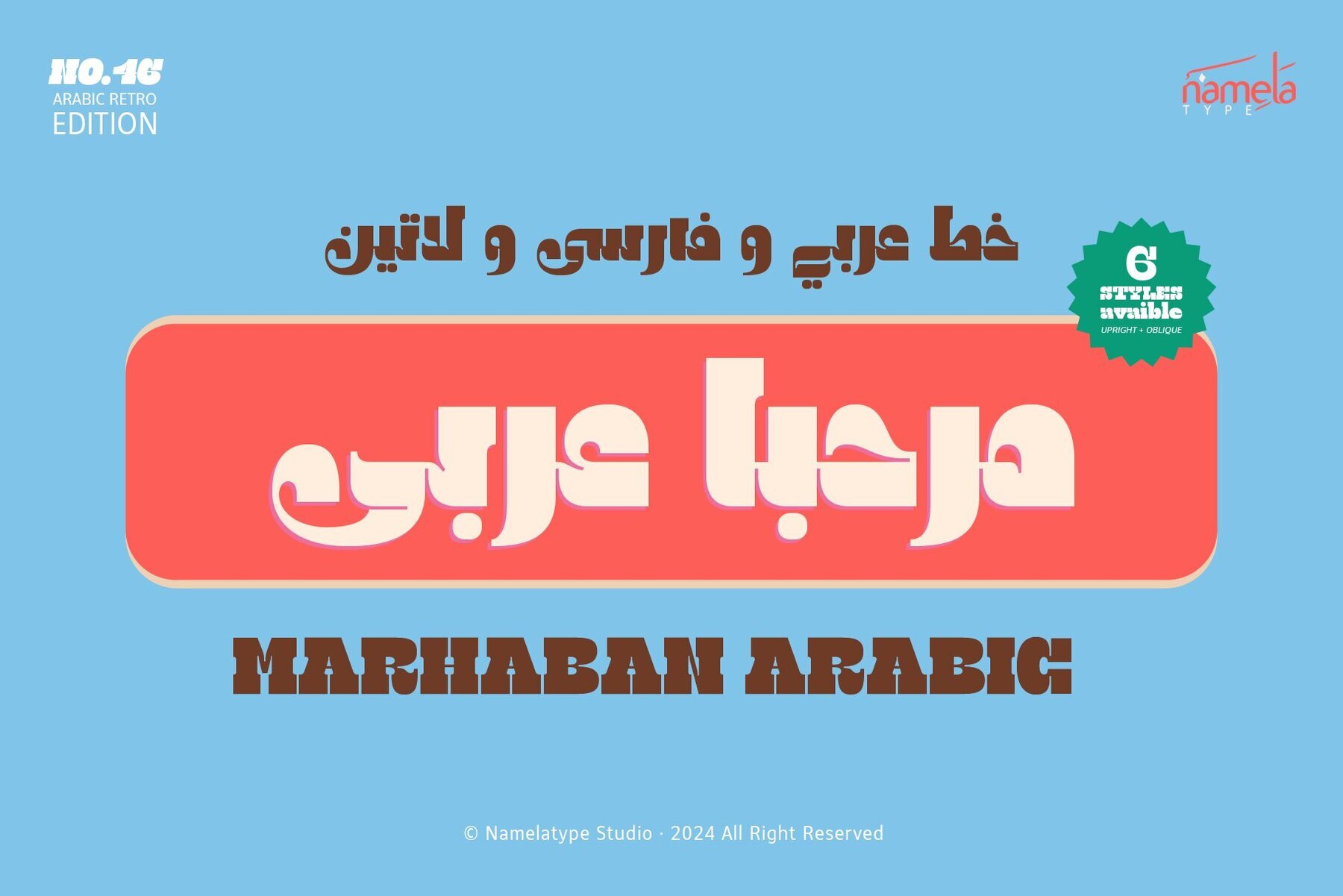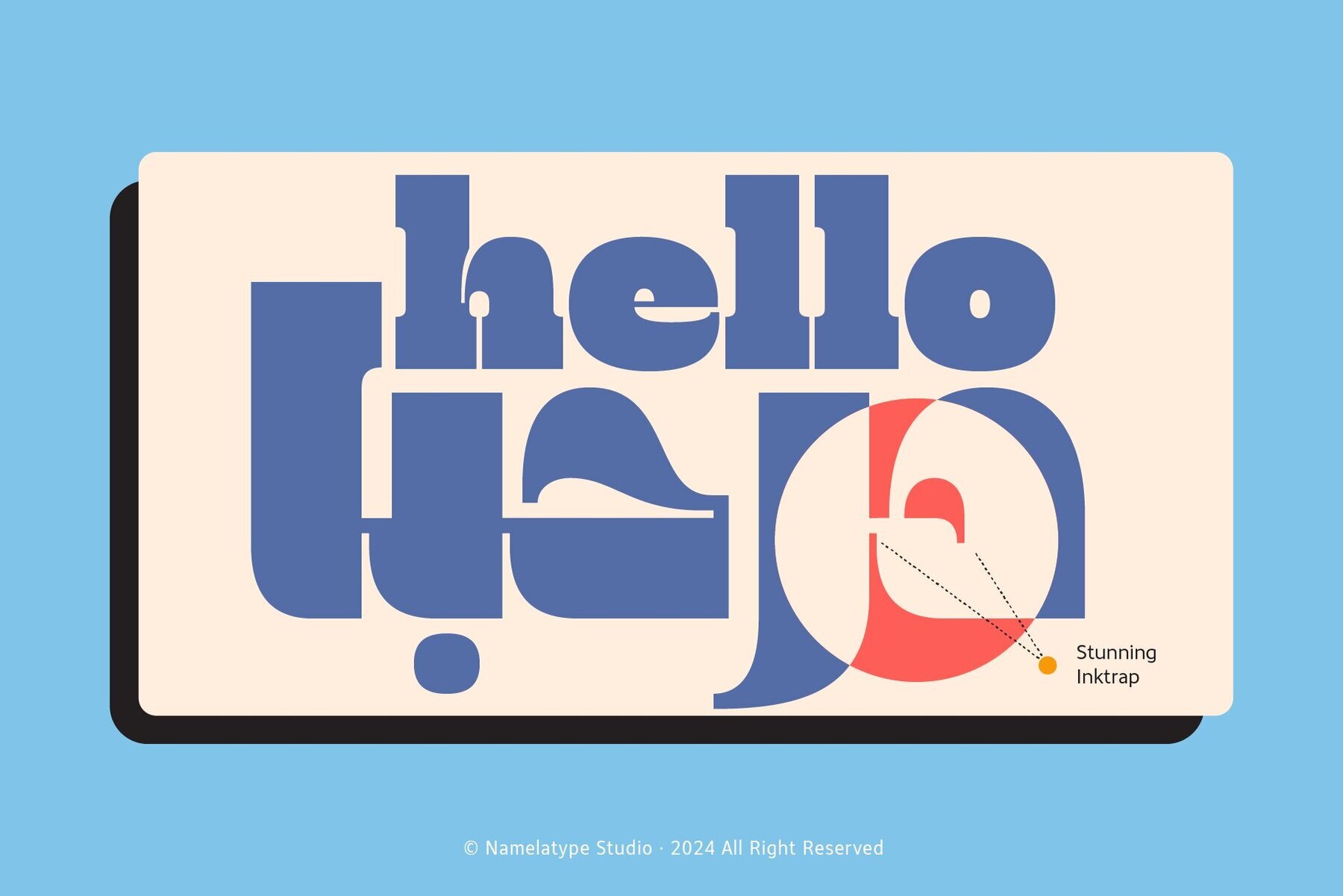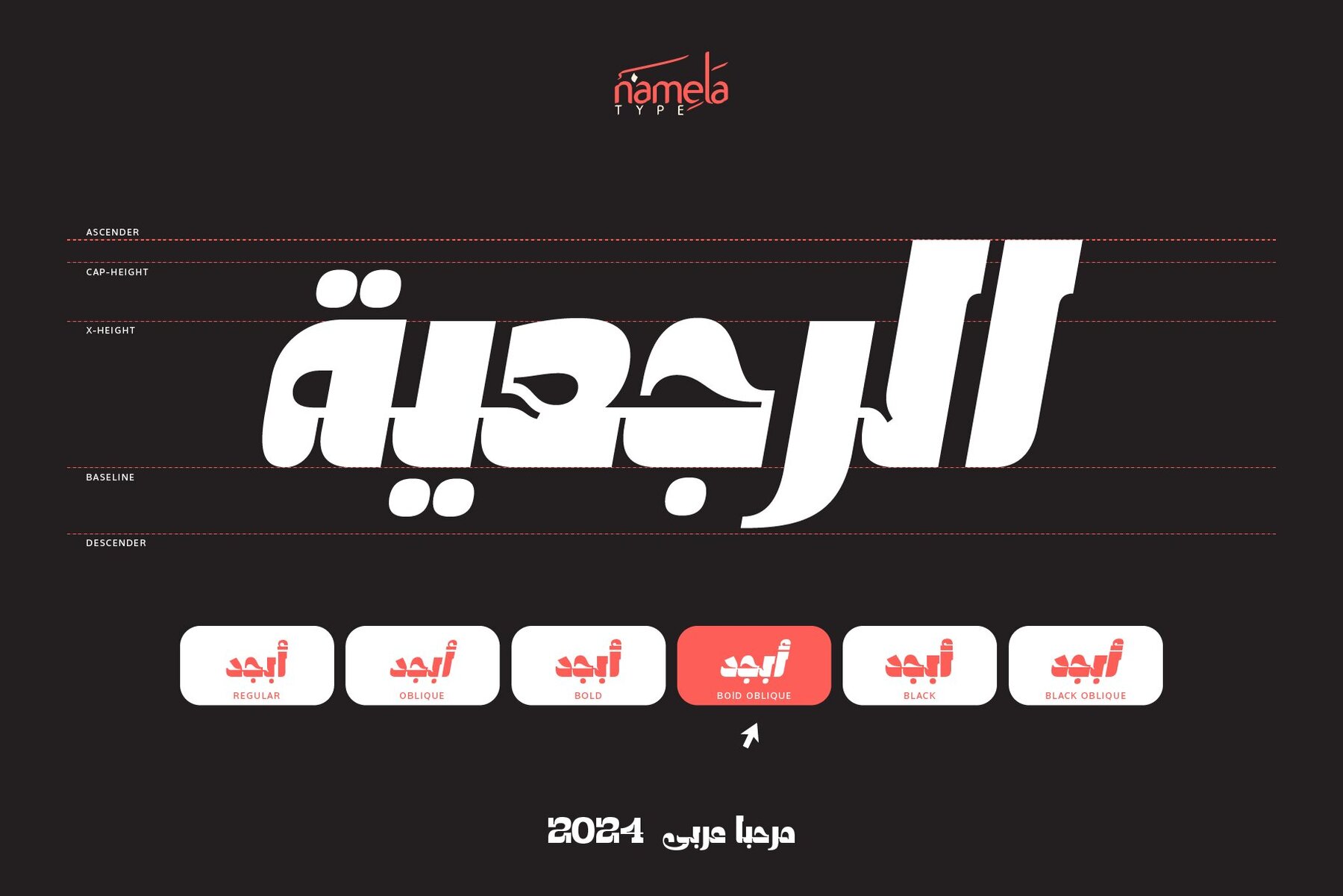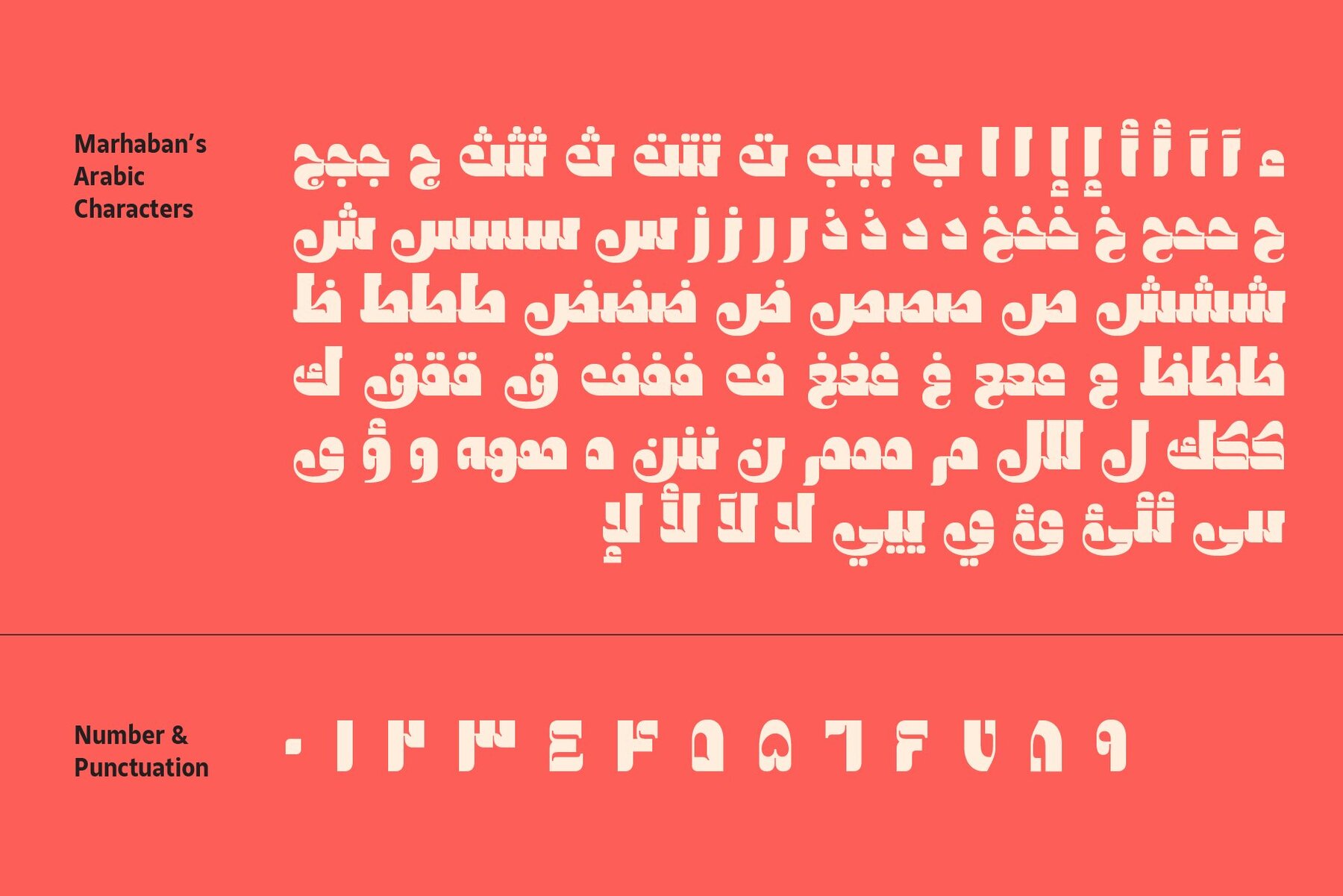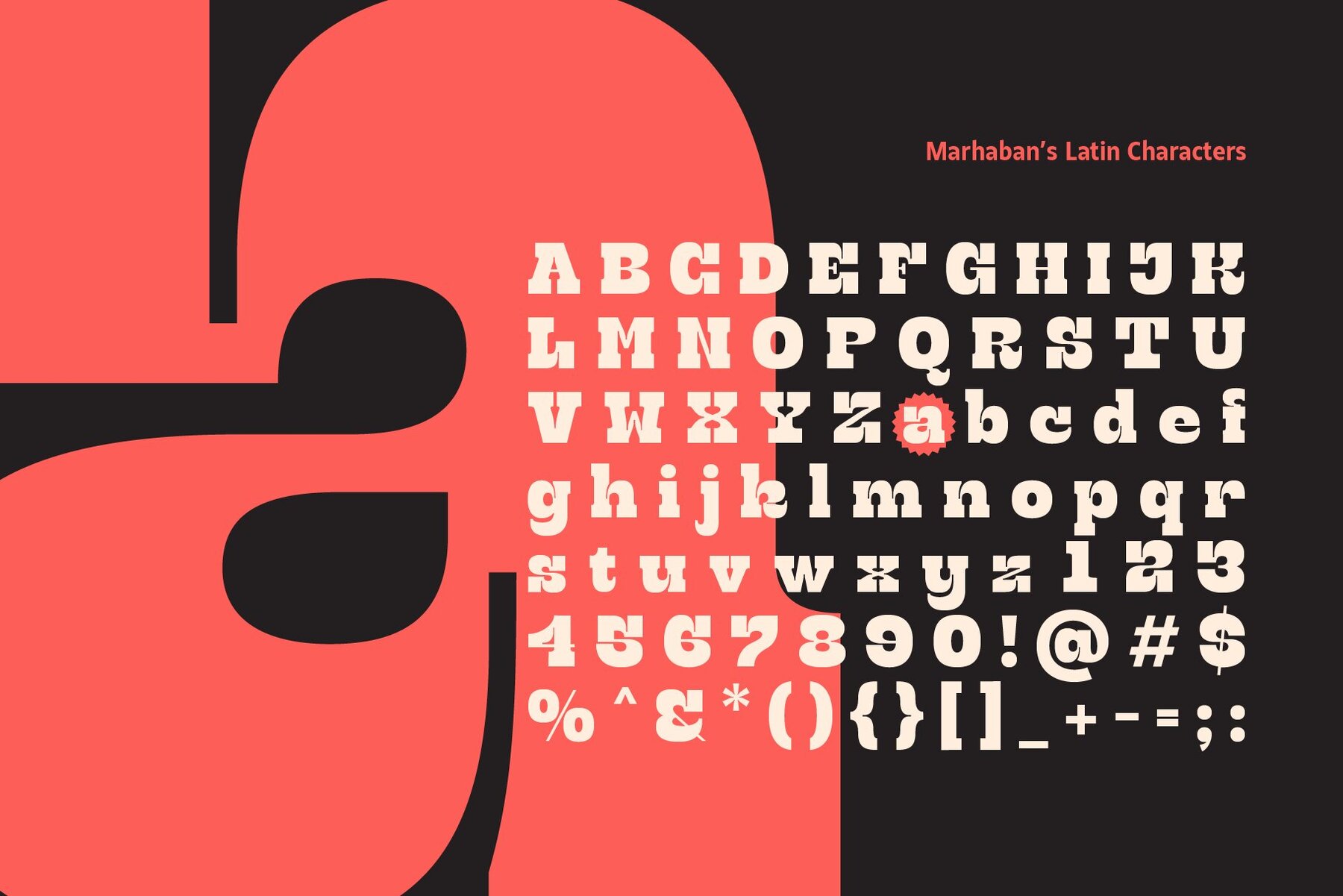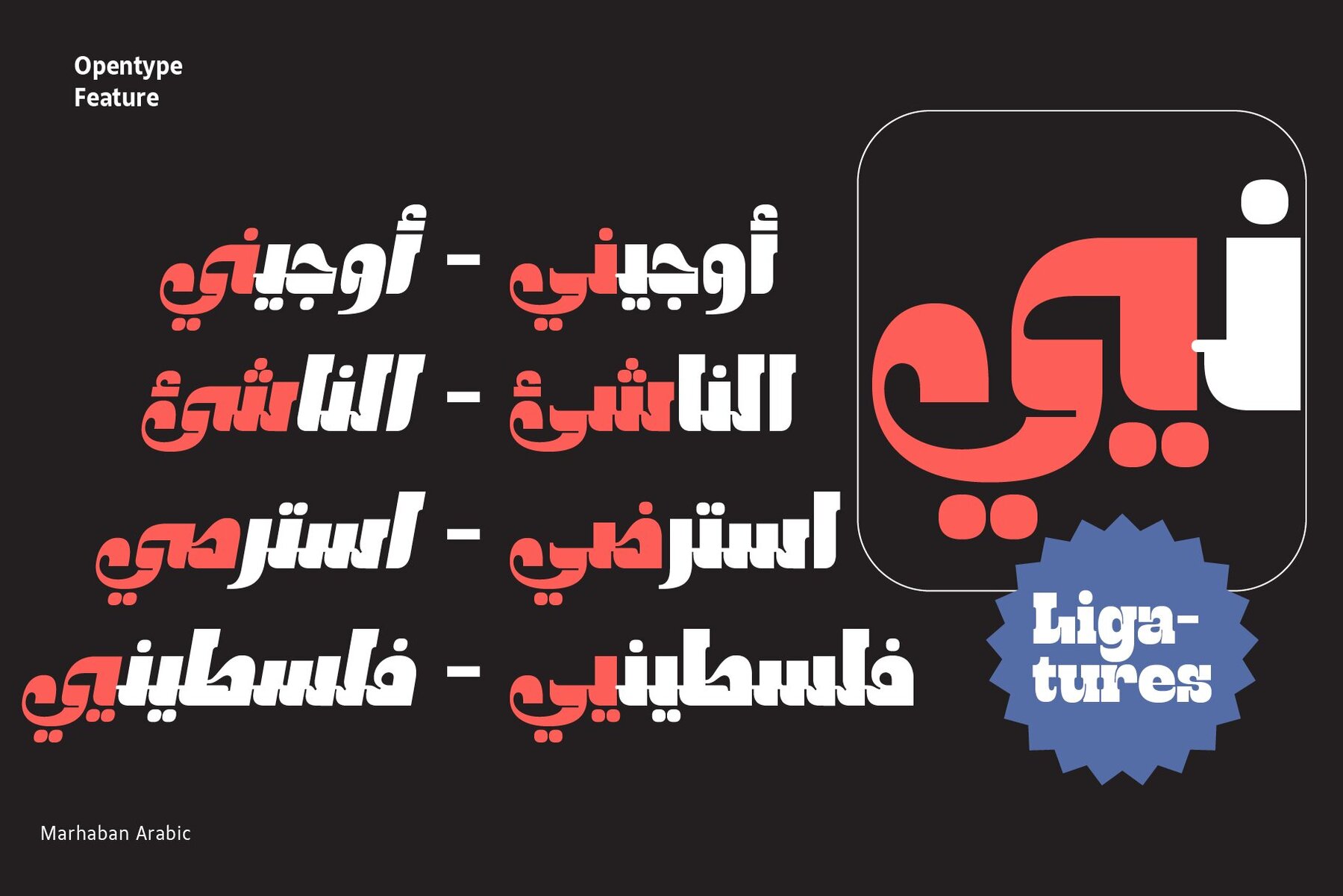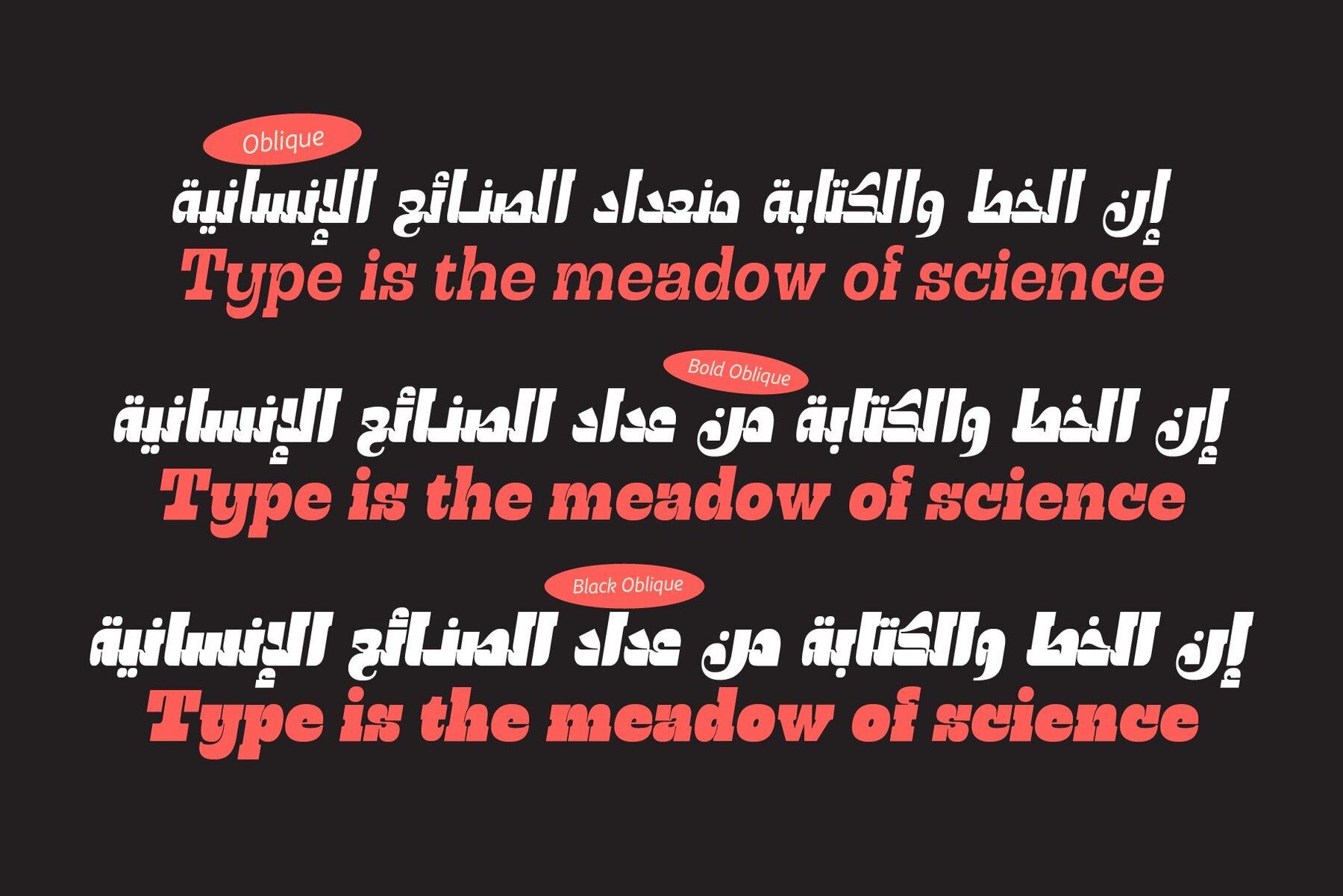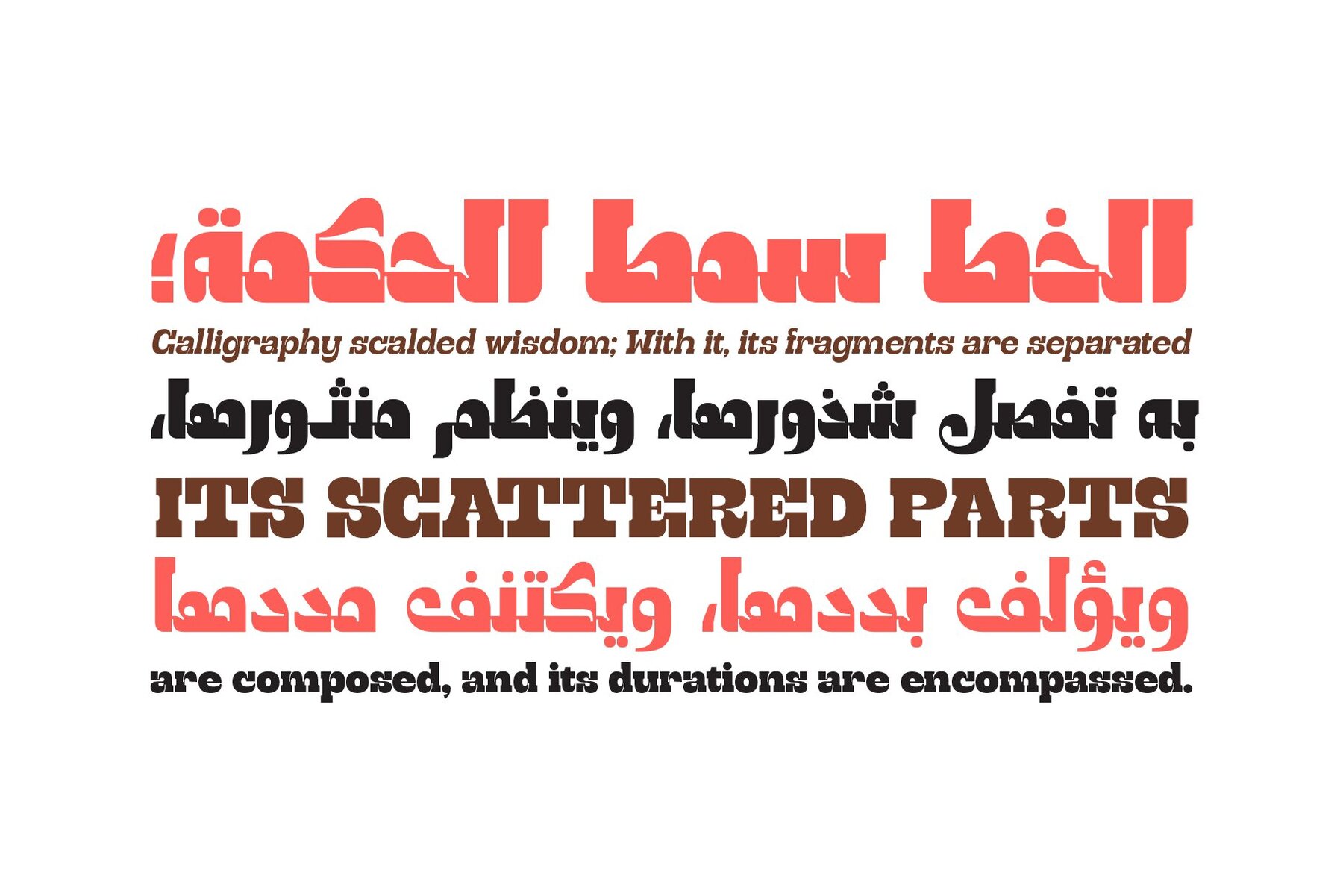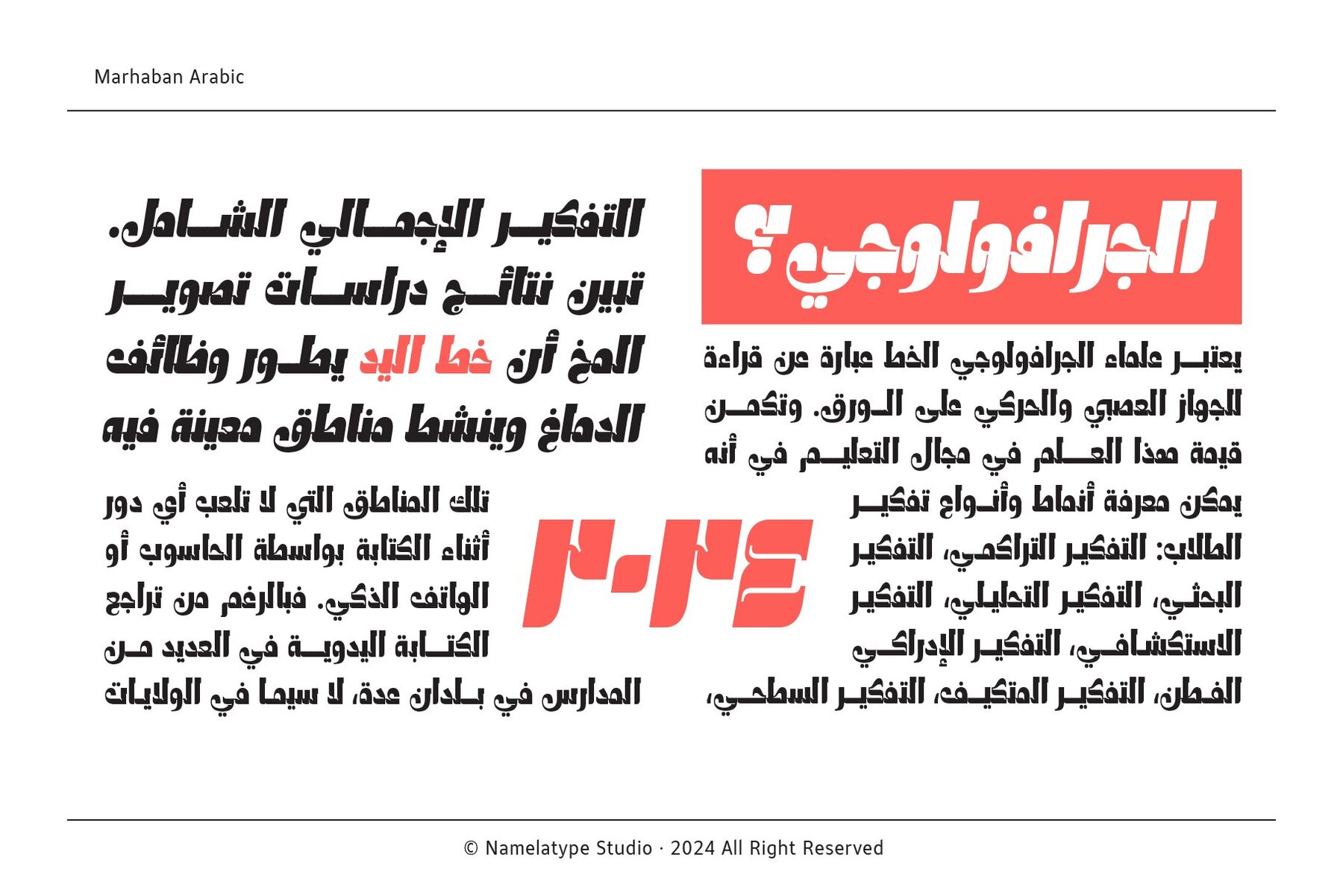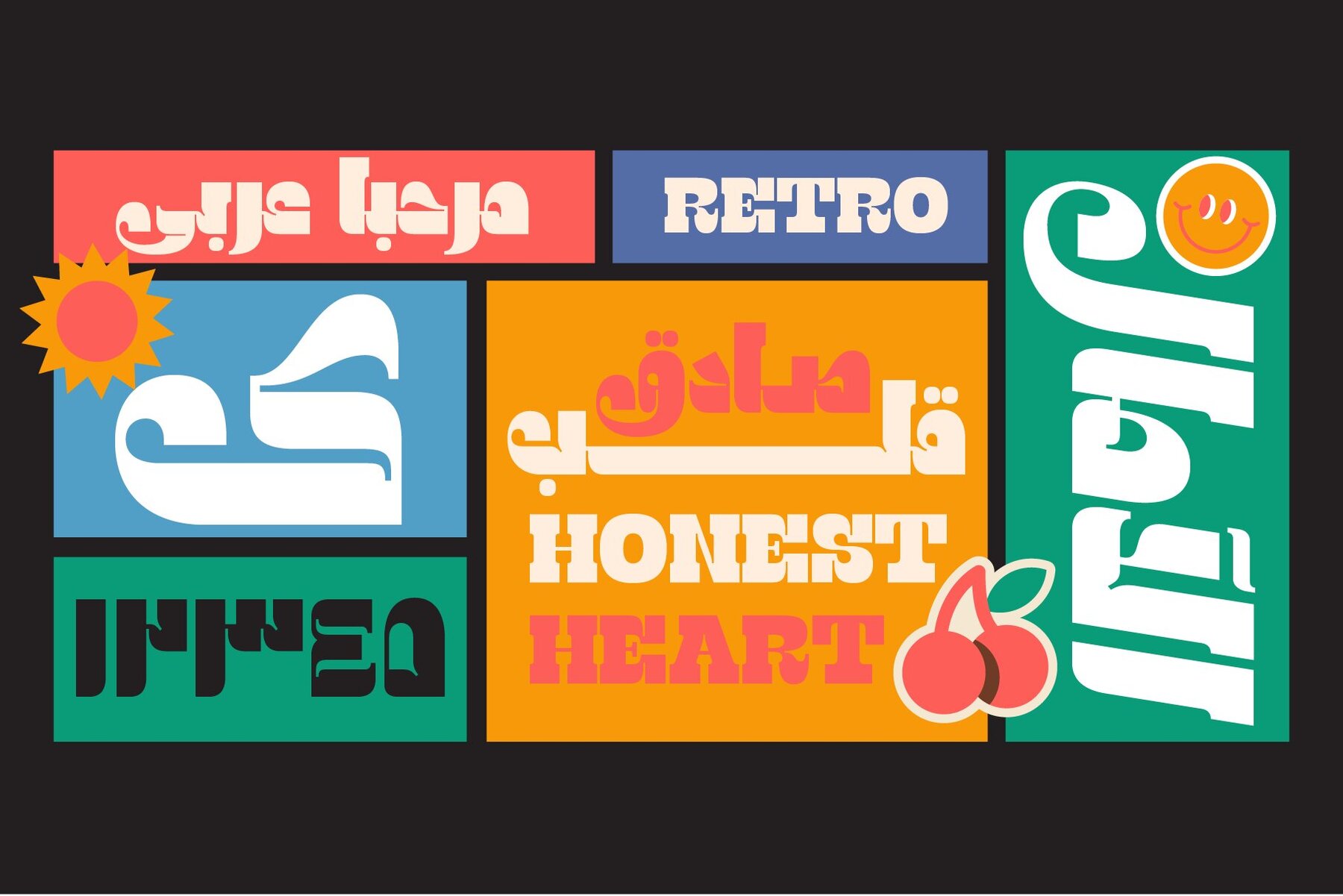
Marhaban Arabic Font
Marhaban Arabic is a retro vintage slab serif font family brings nostalgic charm and bold character to any design. This font style combines the solid, thick serifs typical of slab fonts with retro-inspired details from past decades, often echoing 60s and 70s aesthetics. Its letters are usually well-defined, with strong lines and a touch of ruggedness or weathered texture, giving it a timeless, authentic feel. Marhaban Arabic retro vintage slab serif font Ideal for branding, packaging, and editorial designs, a vintage slab serif font family adds a bold yet classic appeal, capturing a heritage-inspired style that stands out across print and digital formats. This is an expanded version of the Marhaban Font, with the addition of Arabic, Farsy, and Urdu glyphs